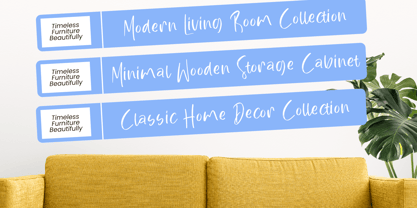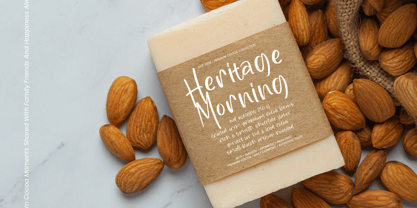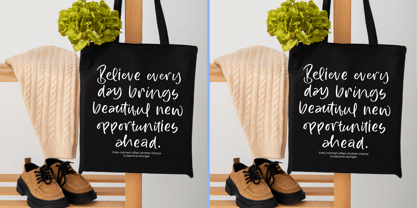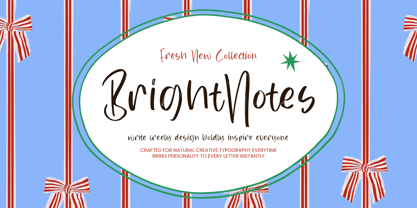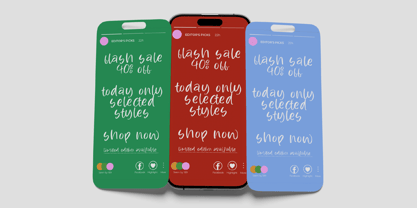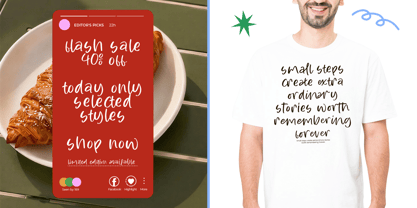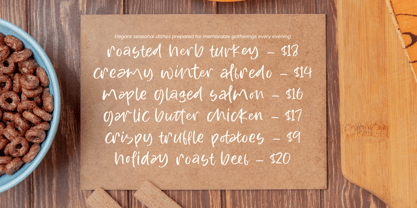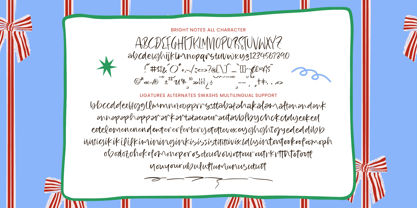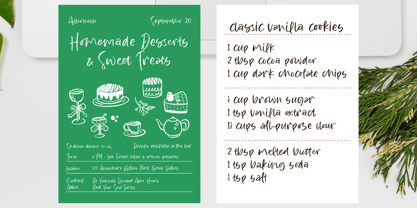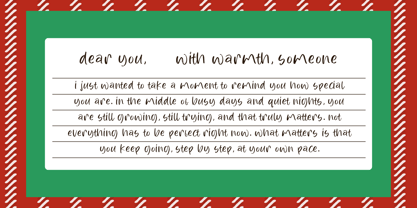
Bright Notes
Elevate your creative projects with an authentic, handcrafted touch that resonates with modern audiences. Bright Notes - Casual Handwritten Brush Font captures the raw, energetic essence of dry-brush strokes, offering a natural rhythm and organic charm that digital typeset often lacks. This versatile brush font is meticulously designed to provide a hand-drawn aesthetic, making it an essential tool for designers seeking to inject personality and artistic flair into their visual storytelling.